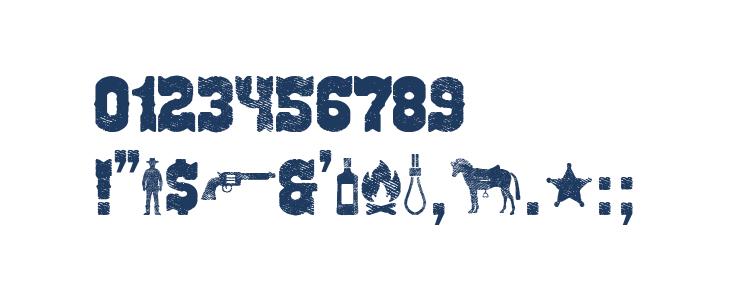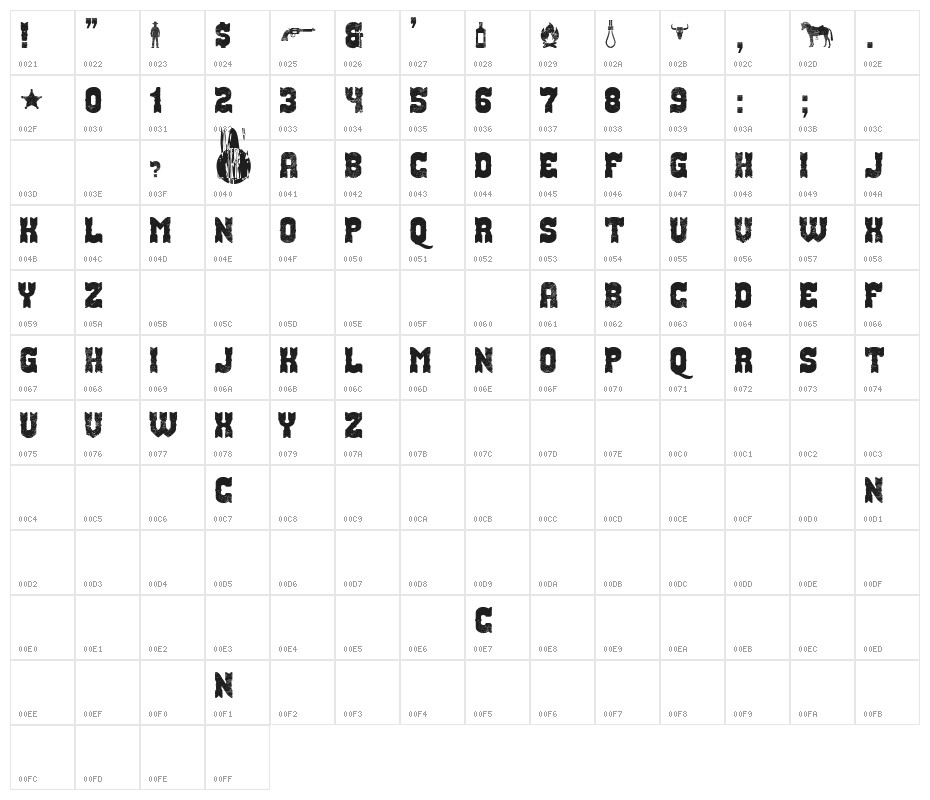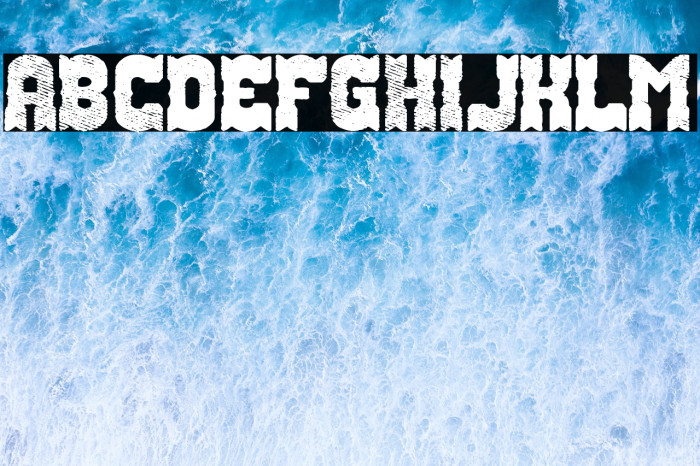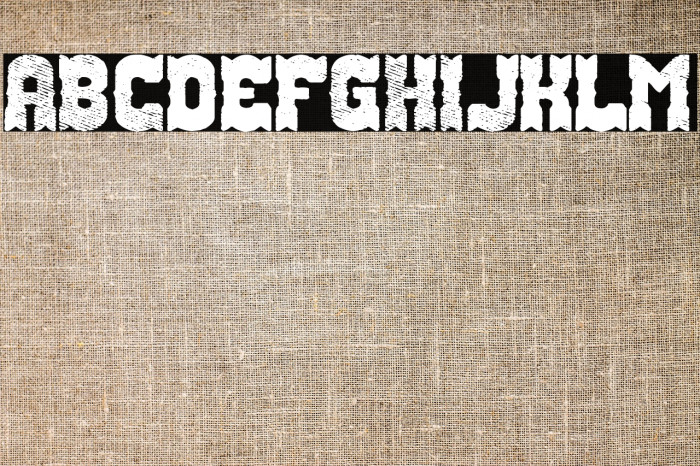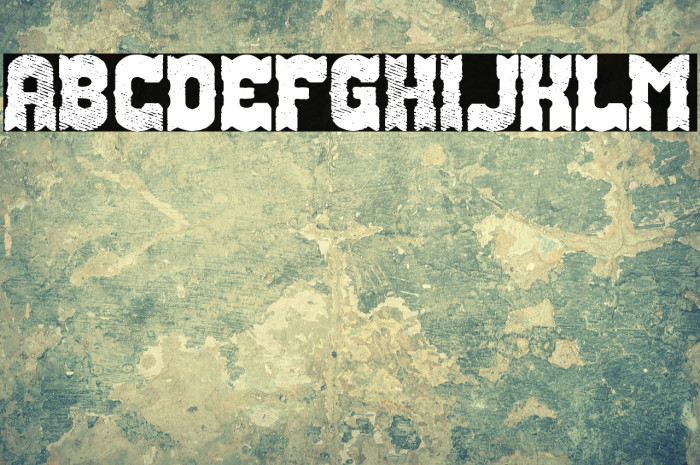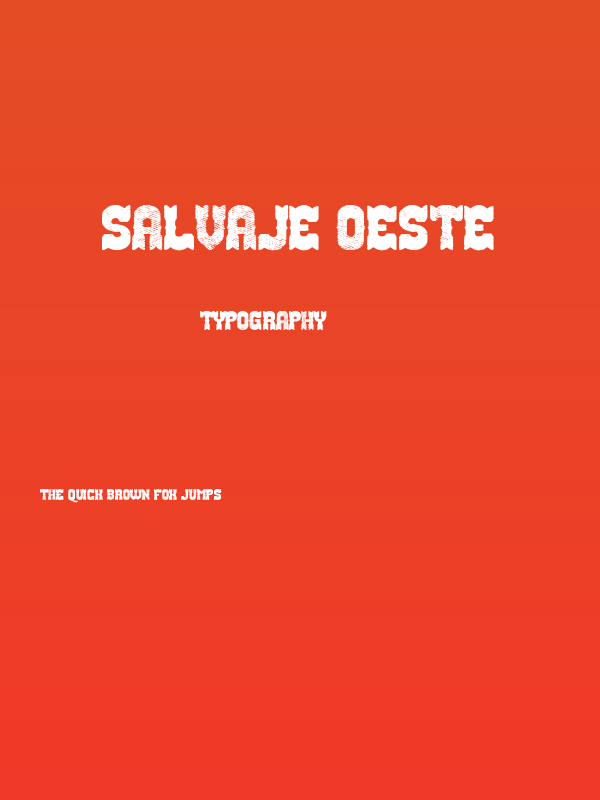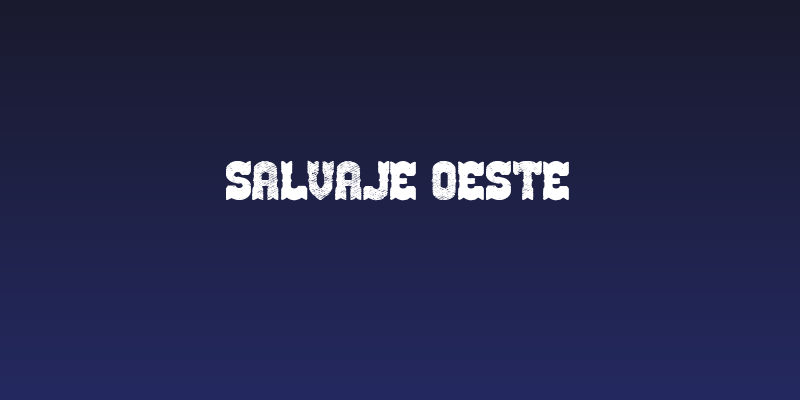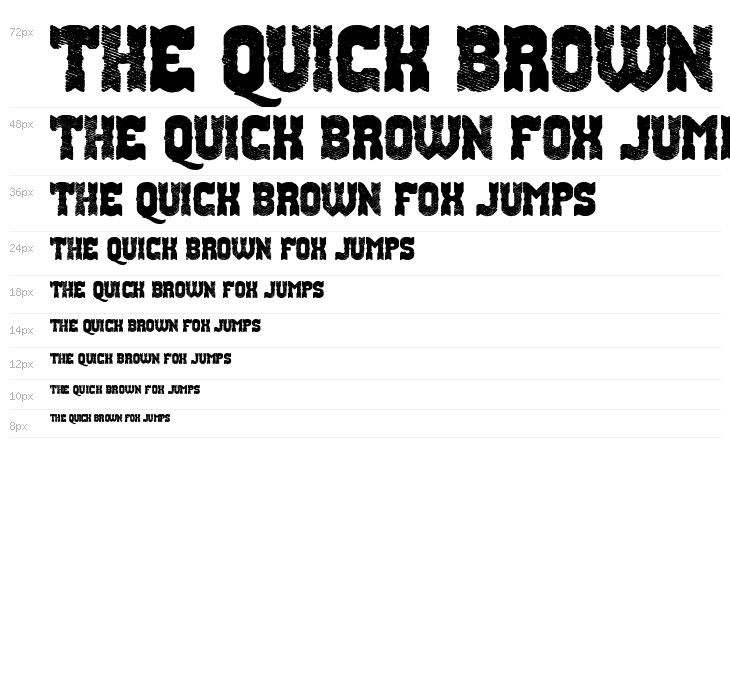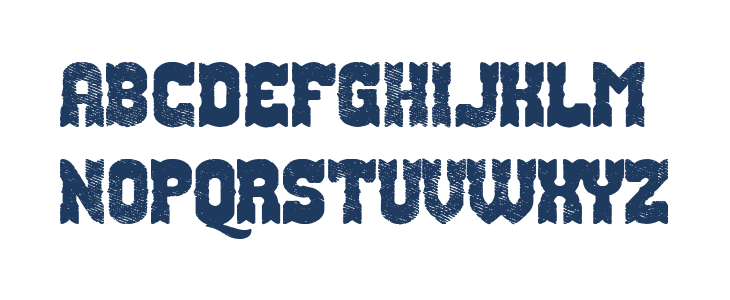
Salvaje Oeste Font
Salvaje Oeste Description
This font exudes a rugged, Western-inspired aesthetic with a distressed texture that mimics the look of worn-out wood or weathered leather. The bold, blocky characters are reminiscent of old saloon signs or wanted posters, capturing the essence of the Wild West. Each letter is uniquely textured, adding a sense of authenticity and grit. The uppercase and lowercase letters maintain a consistent style, while the numbers and special characters complement the overall theme with their bold and decorative design. The inclusion of thematic symbols like a cowboy, revolver, and star further enhances its Western appeal.